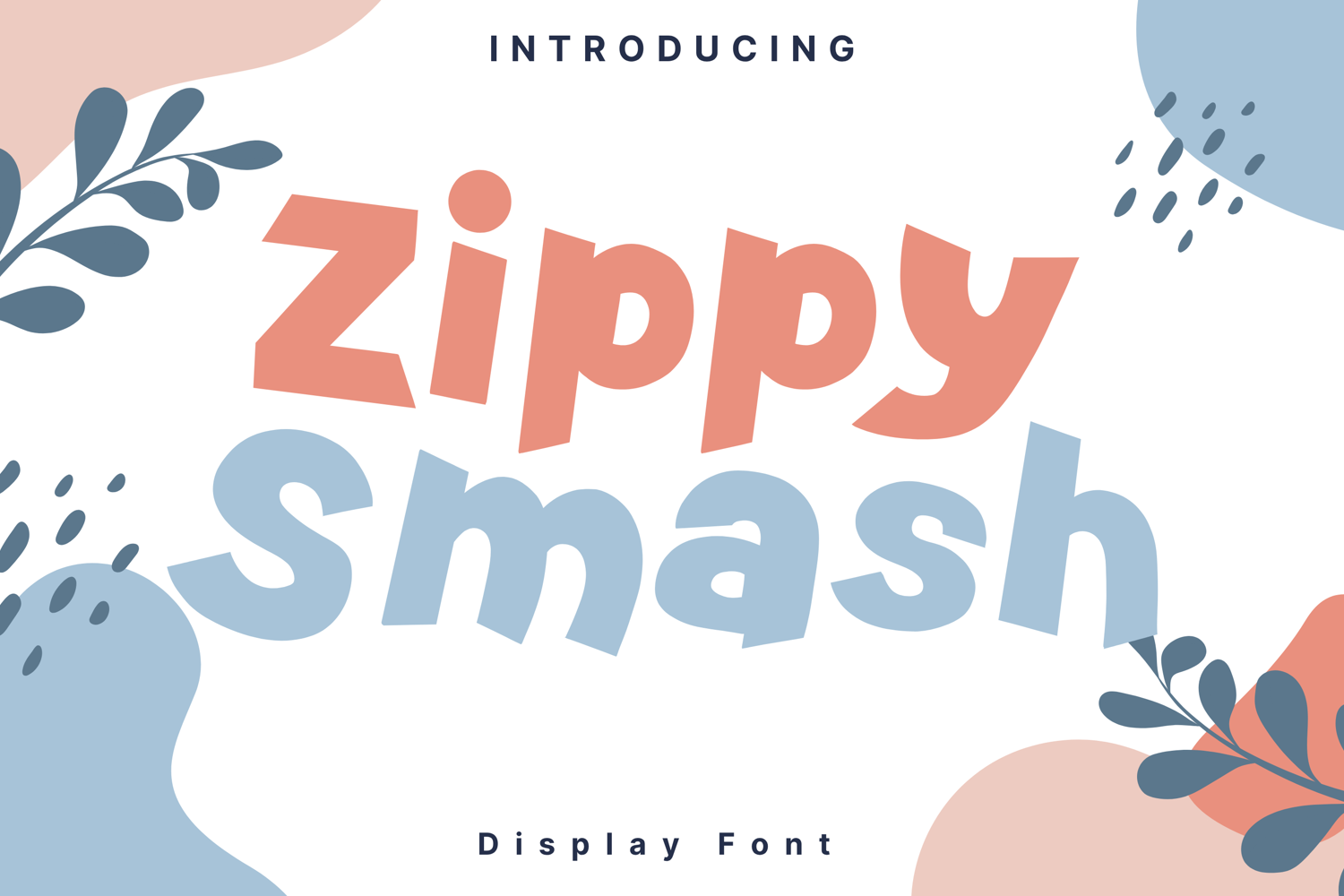
Zippy Smash Style
Zippy Smash is a playful and bold display font bursting with personality. With dynamic letterforms and a bouncy layout, it’s perfect for children’s books, fun branding, product packaging, and eye-catching headlines. This font adds energy and charm to any creative project.